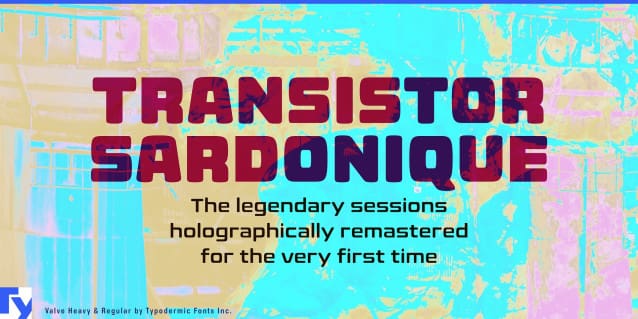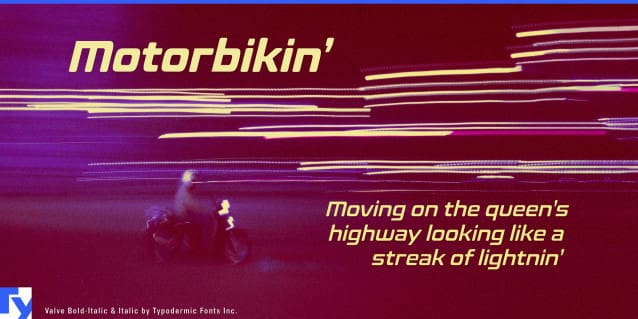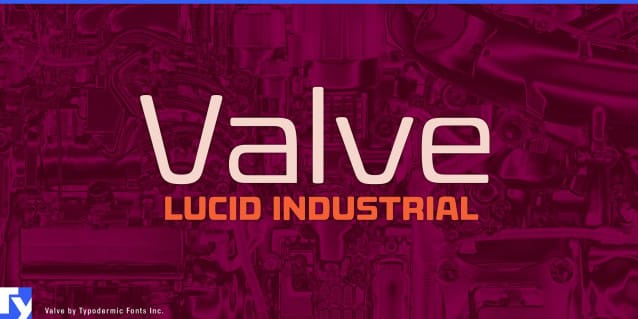
Valve Font Family
Valve Font Family – the ultimate industrial typeface for the modern age. With its superelliptical letterforms and pragmatic stroke logic, Valve Font is the perfect choice for anyone looking to evoke the cold, hard world of plastics, pharmaceuticals, electronics, and alternative energy.
But don’t be fooled by Valve’s emotionless, android-like forms. This is a typeface that packs a punch, with soft stroke ends that lend it a touch of elegance and sophistication. Whether you’re designing a cutting-edge tech brochure or a sleek new website, Valve Font is the perfect choice for anyone who wants to convey a sense of modernity and precision.
And unlike other ultramodern typefaces that rely on tongue-in-cheek references to retro futurism, Valve is purely synthetic. Built solely from artificial elements with no specific structural source, this is a typeface that’s as forward-thinking as they come. So why settle for a typeface that’s stuck in the past when you can choose Valve and embrace the future?
And with OpenType fractions, numeric ordinals, and a wide range of currency symbols included, Valve is more versatile than ever. Available in five weights—Extra-Light, Light, Regular, Bold, and Heavy—as well as a set of sleek obliques, Valve is the perfect choice for anyone looking to take their design game to the next level.